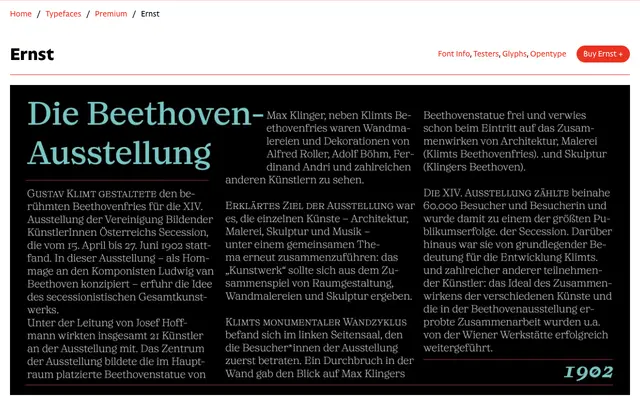
Ernst
CAST · Léon Hughes · 2021
A playful slab serif by Léon Hughes that blends details from Ernst Deutsch/Dryden's Tango and Georg Belwe's Belwe Antiqua into a seven-weight family with a distinctly theatrical italic.
Drawing on peculiar early 20th-century avant-garde typefaces rather than conventional slab traditions, Ernst has pronounced, idiosyncratic details that make it well suited to display work without abandoning text usefulness. Its large x-height and consistent proportions give it staying power across long reads, while the italic takes clear inspiration from Parisian street-theatre lettering of the silent-film era. Old-style figures, small caps and stylistic alternates add typographic depth across all 14 styles.
Ernst is a slab serif drawing on early 20th-century avant-garde faces such as Tango and Belwe Antiqua. Its pronounced details and playful italic mark it as a display-oriented slab, though its large x-height and consistent proportions extend its range to text settings.